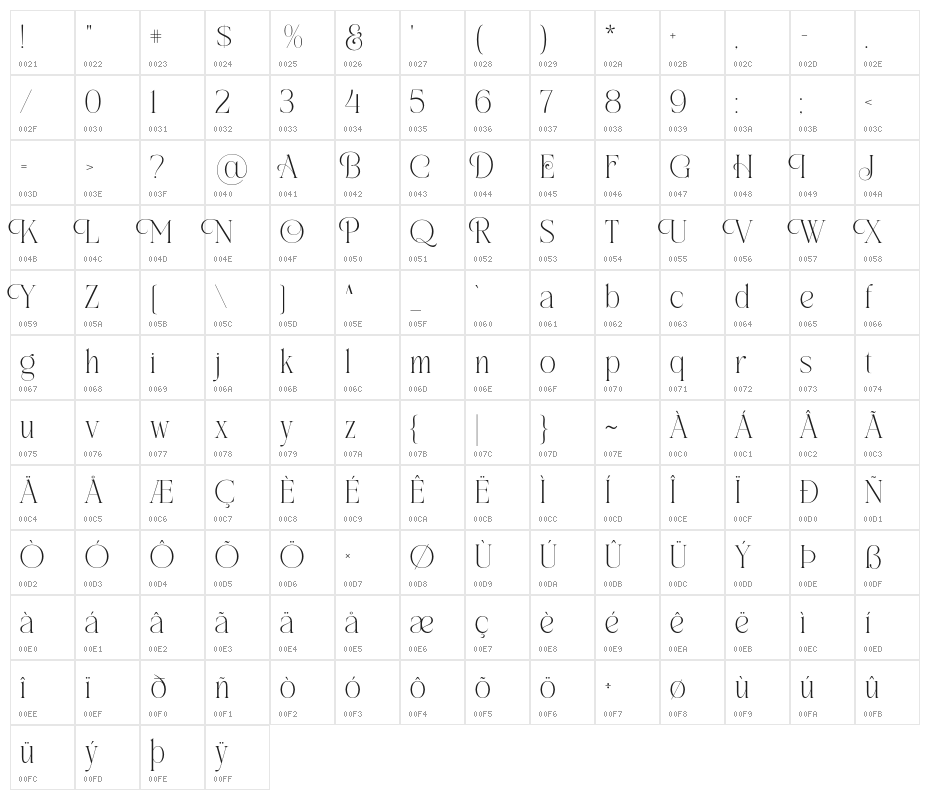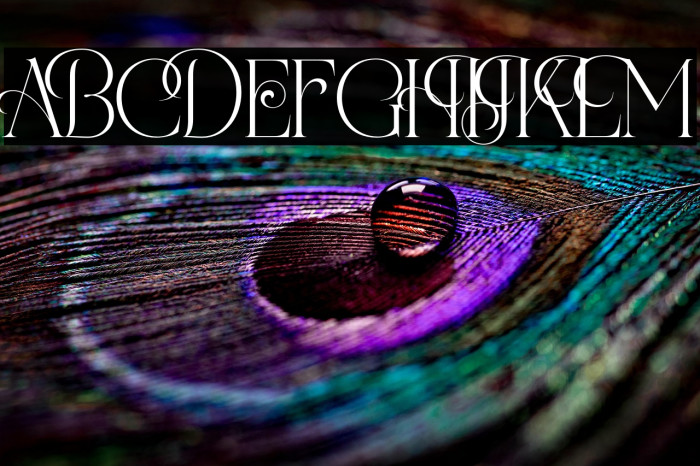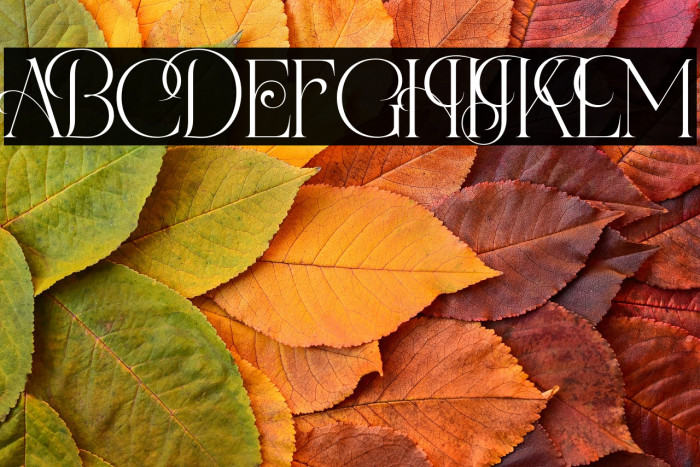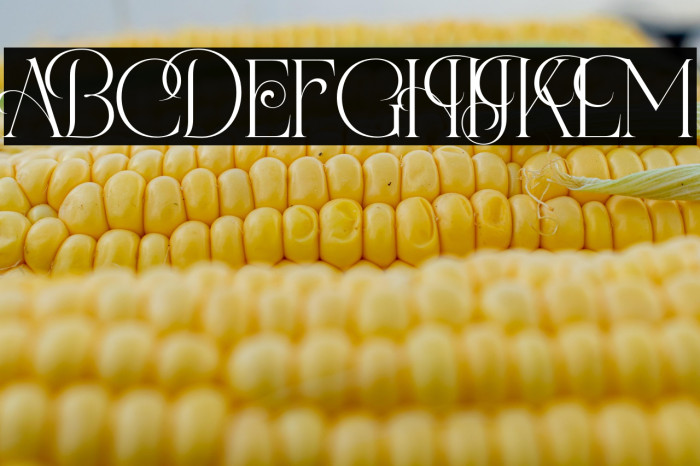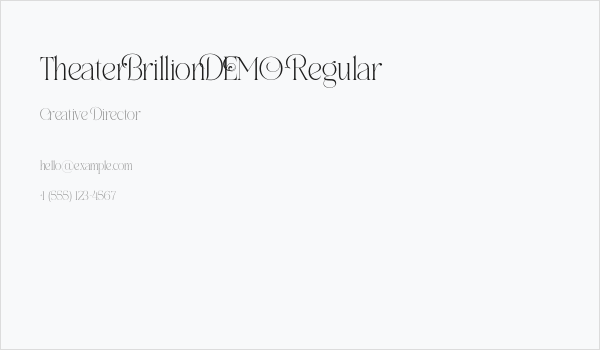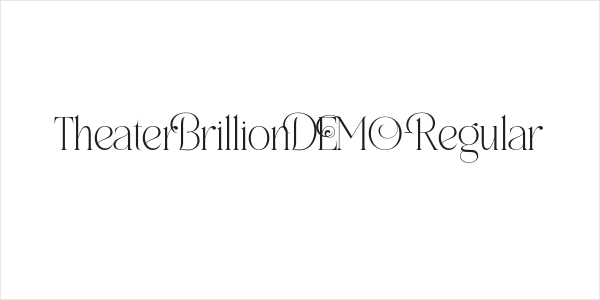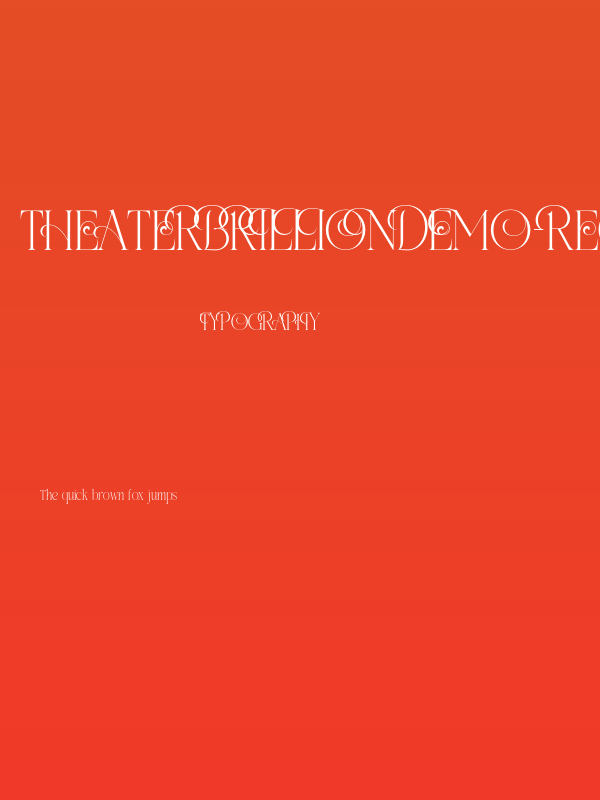
TheaterBrillionDEMO-Regular Font
TheaterBrillionDEMO-Regular Description
This font features an elegant and sophisticated design with a high contrast between thick and thin strokes, giving it a refined and artistic appearance. The uppercase letters are adorned with unique flourishes and swashes, adding a decorative touch that enhances its visual appeal. The lowercase letters maintain a more traditional serif style, providing a balanced and harmonious look. The numerals and special characters are consistent with the overall aesthetic, ensuring a cohesive design. This font's distinct style makes it suitable for projects that require a touch of elegance and creativity.
| Proposed Projects | Ideal for wedding invitations, luxury branding, editorial design, and artistic posters. |